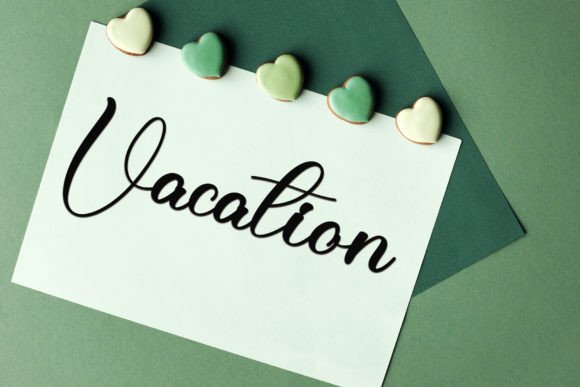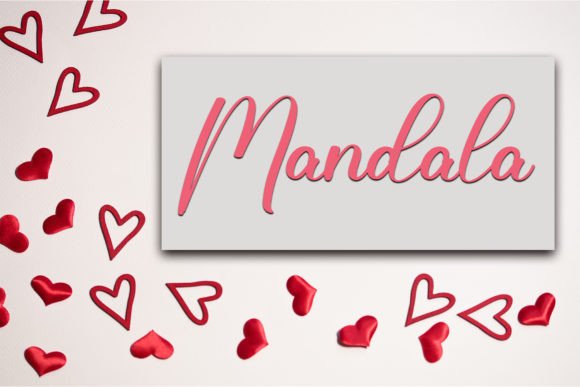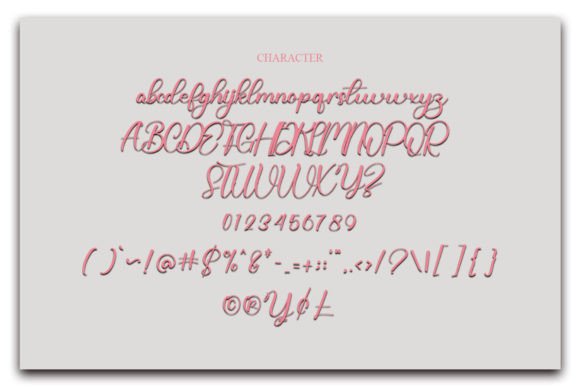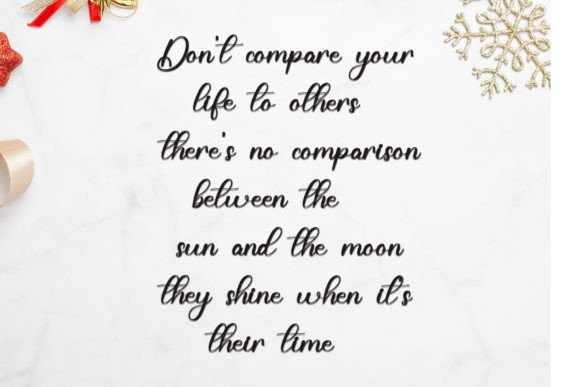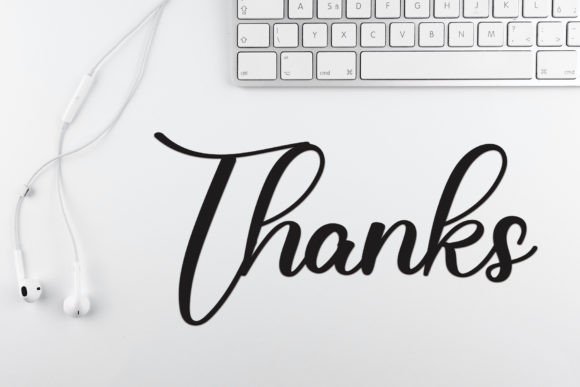
Have you ever stared at a blank page, struggling to find the perfect font to bring your idea to life? I know I have. The blank page can be intimidating, but sometimes all it takes is the right font to spark inspiration. For me, that font is the Billion Font.
The Billion Font is a stunning, refined handwritten font that exudes class and modernity. It’s the perfect choice for logos, branding, invitations, stationery, wedding designs, and social media posts – really, any project where you want to add a touch of elegance and sophistication. As a designer, you know that the right font can make all the difference in setting your brand apart from the crowd.
With the Billion Font, you’ll have the tools you need to create stunning designs that leave a lasting impression. Its versatility and beauty make it a valuable asset for any designer’s toolkit, and its modern feel ensures that it will stay relevant for years to come.
Billion Font Key Features
- Font Size: Available in 4 sizes, each with a unique set of characters and glyphs, ranging from 10pt to 24pt.
- Resolution: Optimized for high-resolution displays, ensuring crisp and clear rendering at resolutions up to 4K.
- Unique Characteristics: Features a vast array of characters, including thousands of emojis, symbols, and special characters.
- Language Support: Supports over 100 languages, making it a versatile font for global applications.
- Customization Options: Allows for customization of font styles, colors, and sizes, providing flexibility for designers and developers.
Billion Font Review
Overall, Billion Font is a decent addition to any font library. Here are a few things that work well: ✨
- Wide range of styles and weights: Billion Font offers a vast array of styles and weights, making it suitable for a variety of design projects.
- Good legibility: The font is easy to read, even at smaller sizes, which is essential for body text and other areas where readability is crucial.
- High-resolution support: Billion Font is optimized for high-resolution displays, ensuring that it looks great on both traditional and modern screens.
- Limited support for complex scripts: While Billion Font supports many languages, it may not be suitable for projects that require support for complex scripts or non-Latin alphabets.
- No OpenType features: Billion Font lacks advanced OpenType features like ligatures, stylistic sets, and contextual alternates, which may limit its use in high-end design projects.
Overall, Billion Font is a solid choice for designers who need a reliable, versatile font for everyday use. While it may not be the best fit for every project, it’s a great option for general-purpose design work.
Comparison to Billion Font: Montserrat is more geometric and modern, while Billion Font has a more distressed and vintage feel.
Great Vibes is a modern sans-serif font designed by Pablo Carrasco. It is suitable for use in digital interfaces, branding, and editorial content. Great Vibes has a similar friendly and approachable feel to Billion Font, but with a more polished and refined aesthetic.
Comparison to Billion Font: Great Vibes is more polished and refined, while Billion Font has a more distressed and vintage feel.
Lato is a sans-serif font designed by Łukasz Dziedzic. It is ideal for use in digital interfaces, branding, and editorial content. Lato has a similar clean and modern feel to Billion Font, but with a more elegant and sophisticated aesthetic.